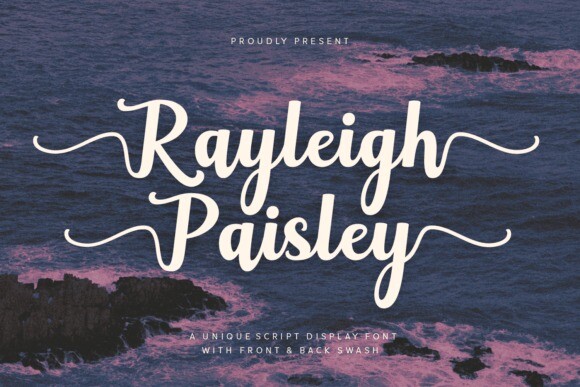
Rayleigh Paisley Font
Rayleigh Paisley Font is a beautiful script font that features elegant front and back swashes. Its flowing letters and decorative elements give it a stylish and artistic look, perfect for adding a personal touch to invitations, cards, and creative projects. The swashes enhance its charm, making it visually appealing and unique.